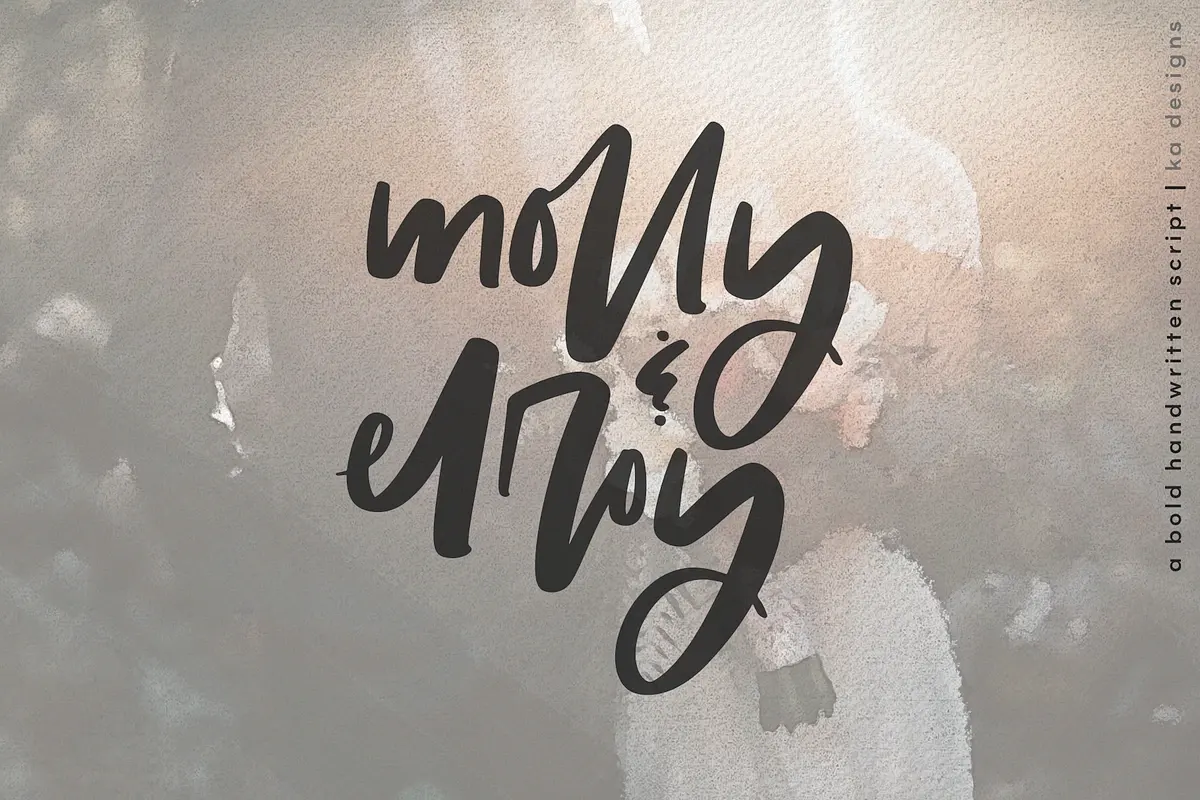
Molly & Elroy - Bold Script Font Free Download
Molly & Elroy Font Free Download is a bold and playful script typeface that adds personality and flair to any design. With its smooth curves, bold strokes, and unique charm, this font is perfect for branding, packaging, logos, event invitations, and social media graphics.
Its dynamic letterforms capture the essence of modern calligraphy while maintaining high readability and a fun, lively vibe. Whether you’re creating a whimsical brand identity, a festive invitation, or an attention-grabbing logo, Molly & Elroy brings energy and style to your project. Molly & Elroy Font Free Download lets you test its bold, cheerful design in personal projects before purchasing a commercial license.
Make your designs stand out with Molly & Elroy — the bold script font that radiates creativity and fun.